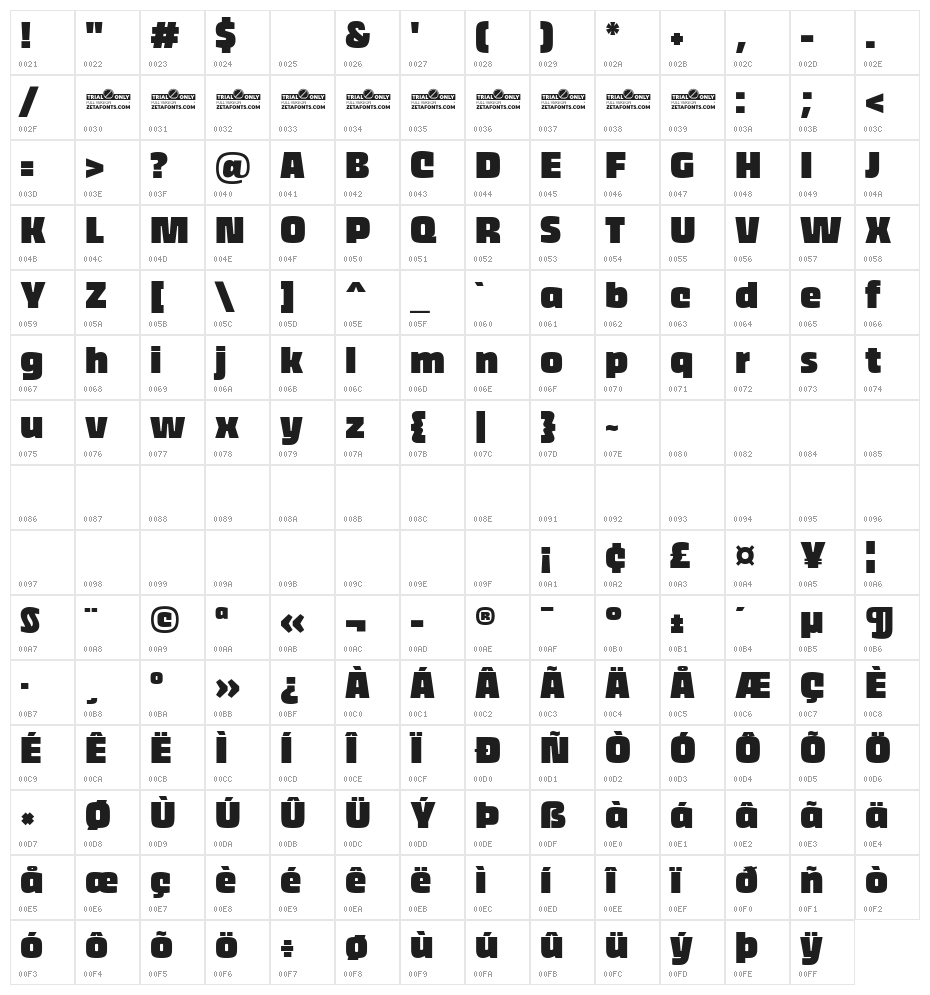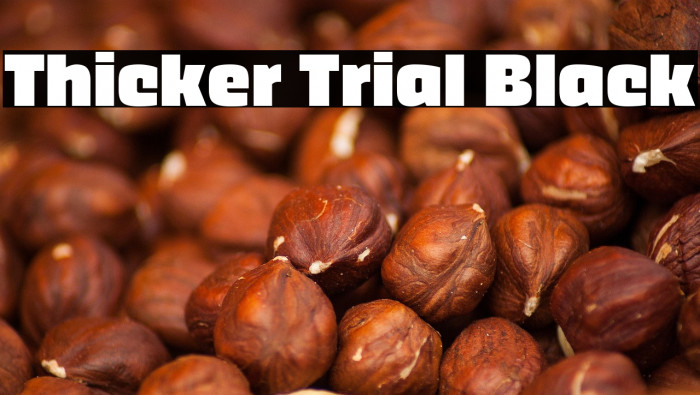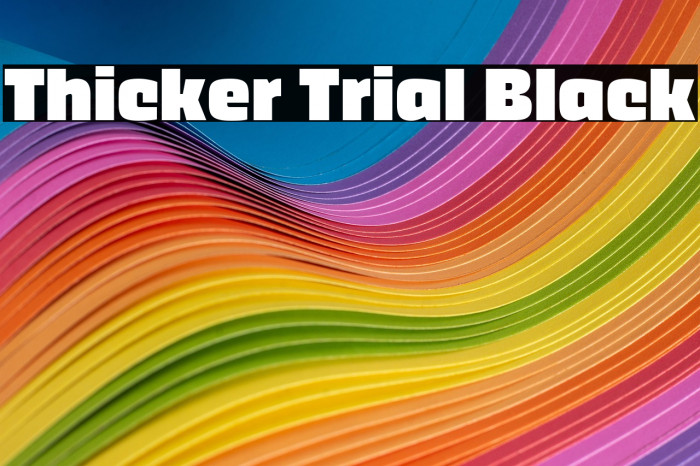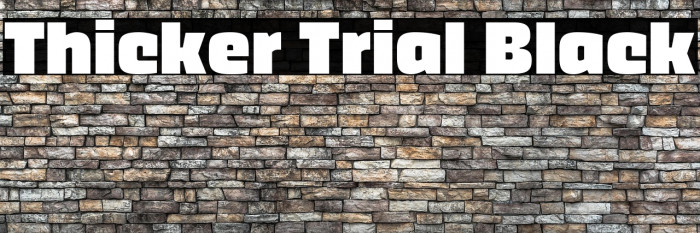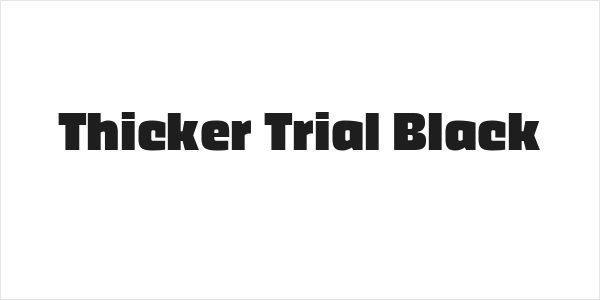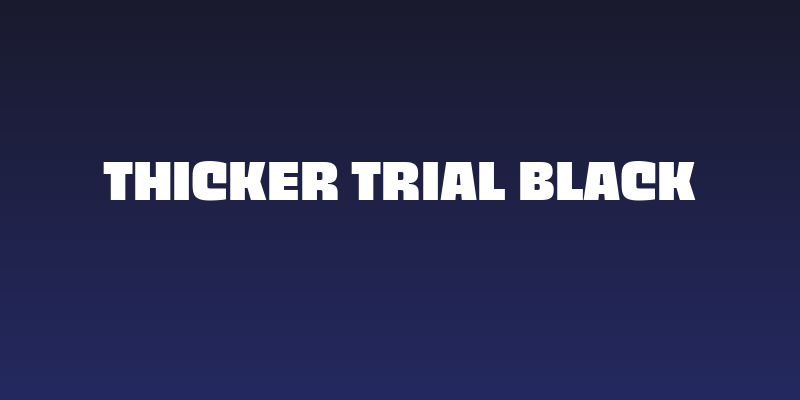
Thicker Trial Black Font
Thicker Trial Black Description
This font is characterized by its bold and impactful presence, featuring thick, uniform strokes that convey strength and stability. The uppercase and lowercase letters maintain a consistent weight, creating a cohesive and powerful look. The geometric shapes of the characters are well-defined, with a slight curvature that adds a touch of modernity. The font's design is straightforward yet assertive, making it suitable for attention-grabbing headlines and branding. Its robust structure ensures readability even at smaller sizes, while the boldness of the characters makes it ideal for making a statement.
Proposed ProjectsIdeal for branding, headlines, posters, and any project requiring a strong visual impact.